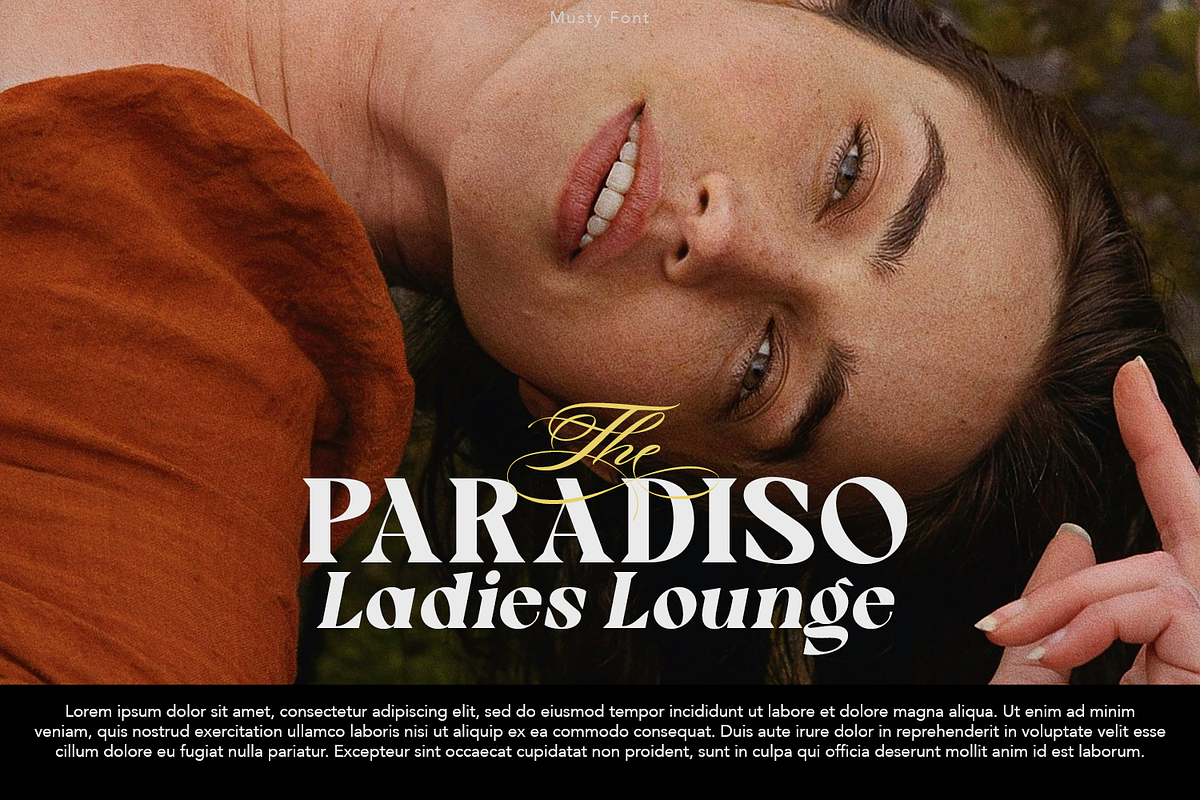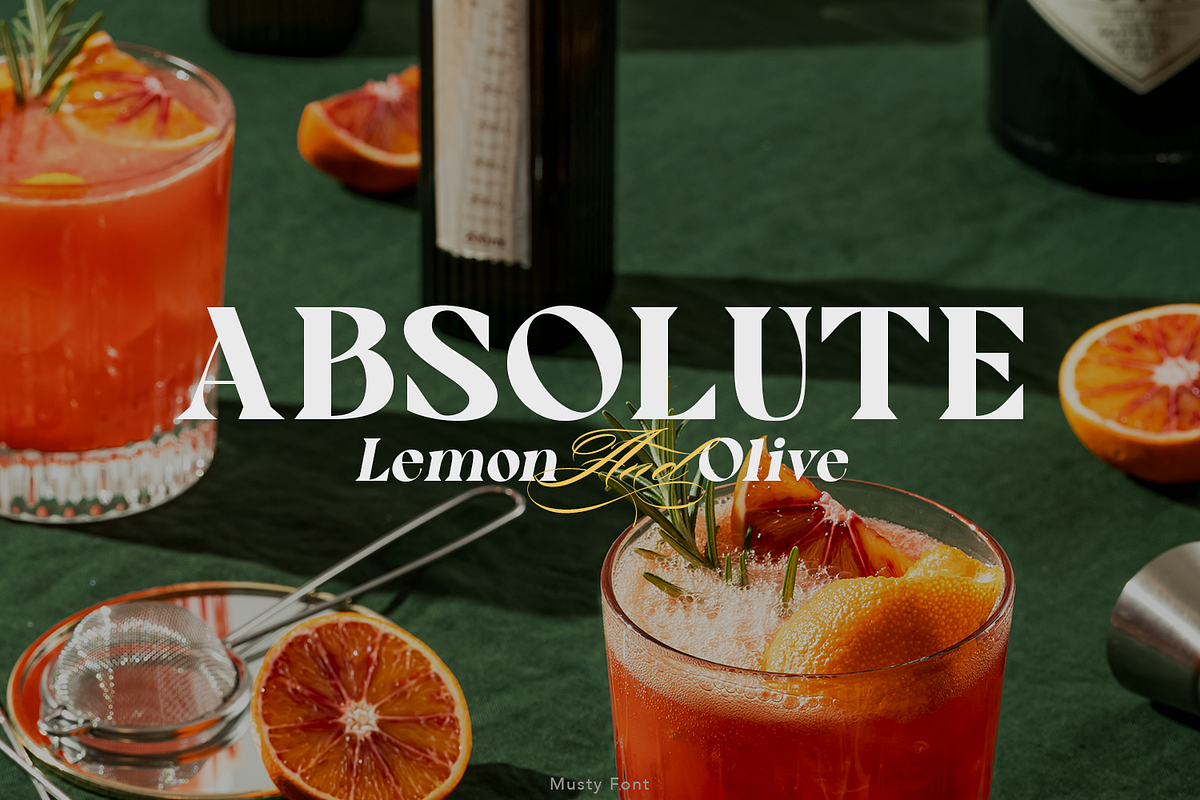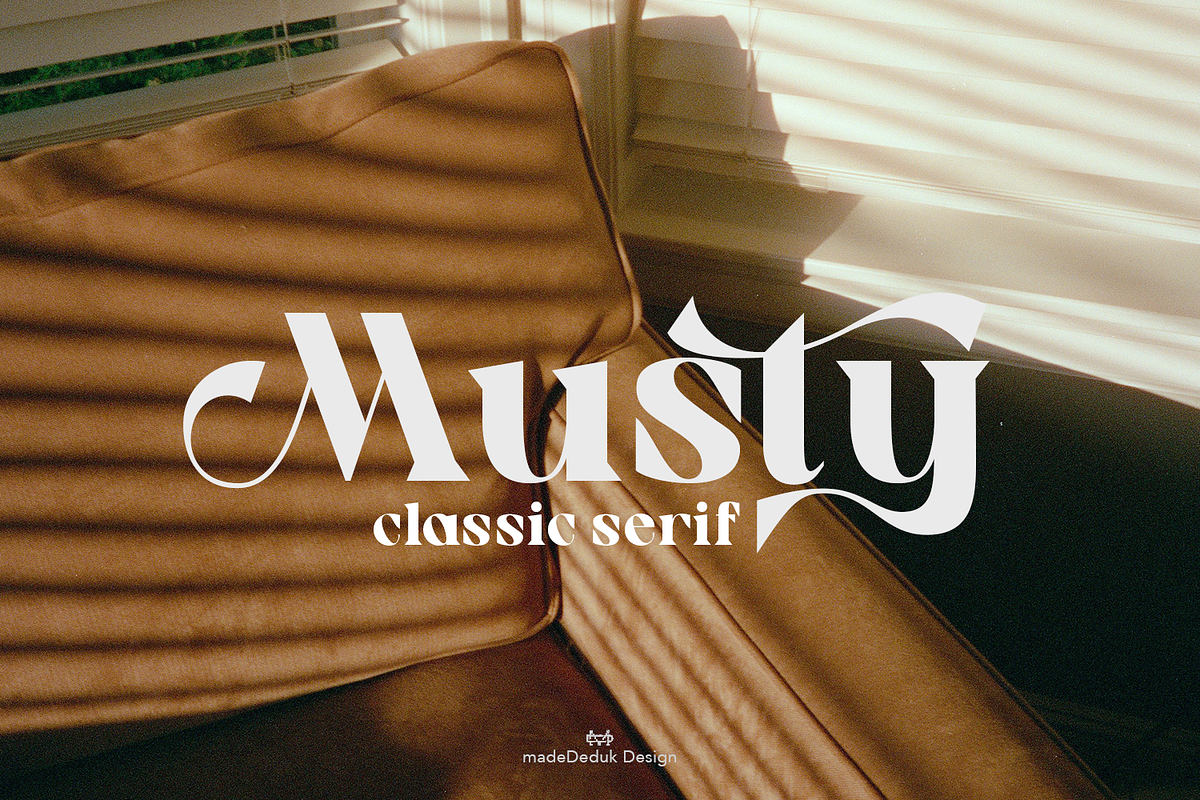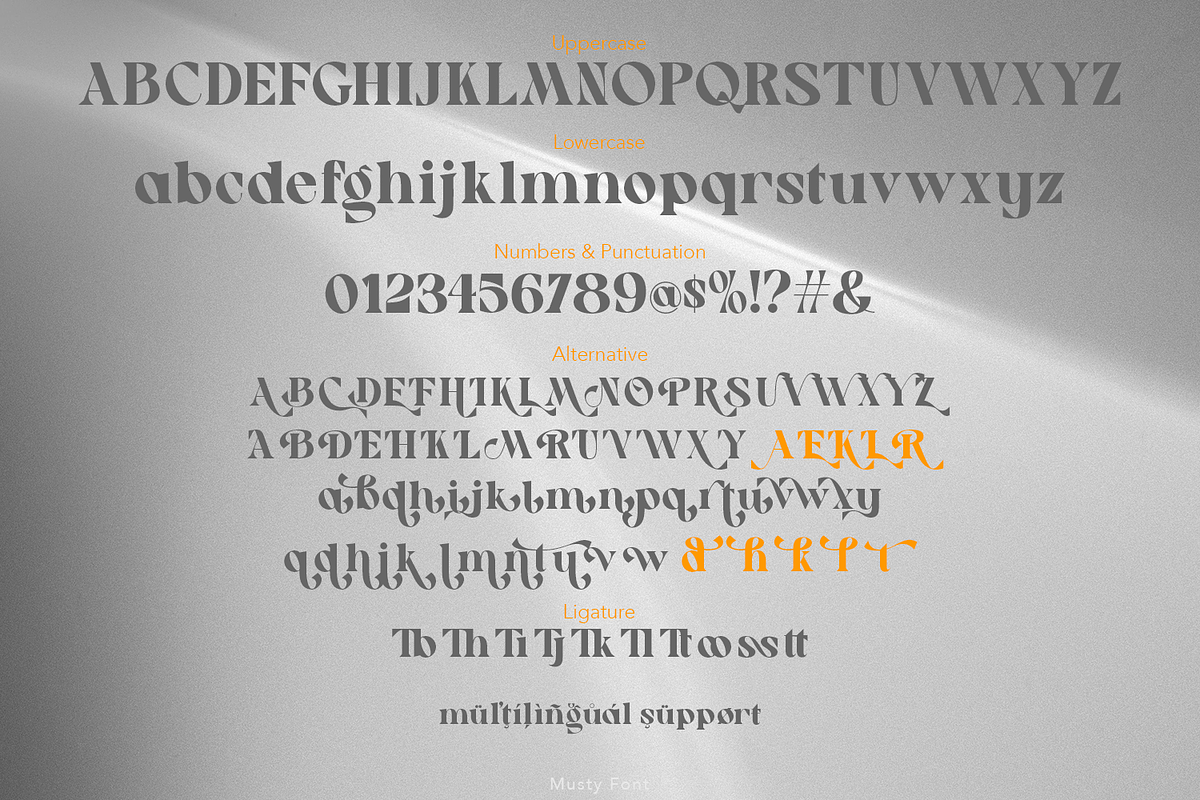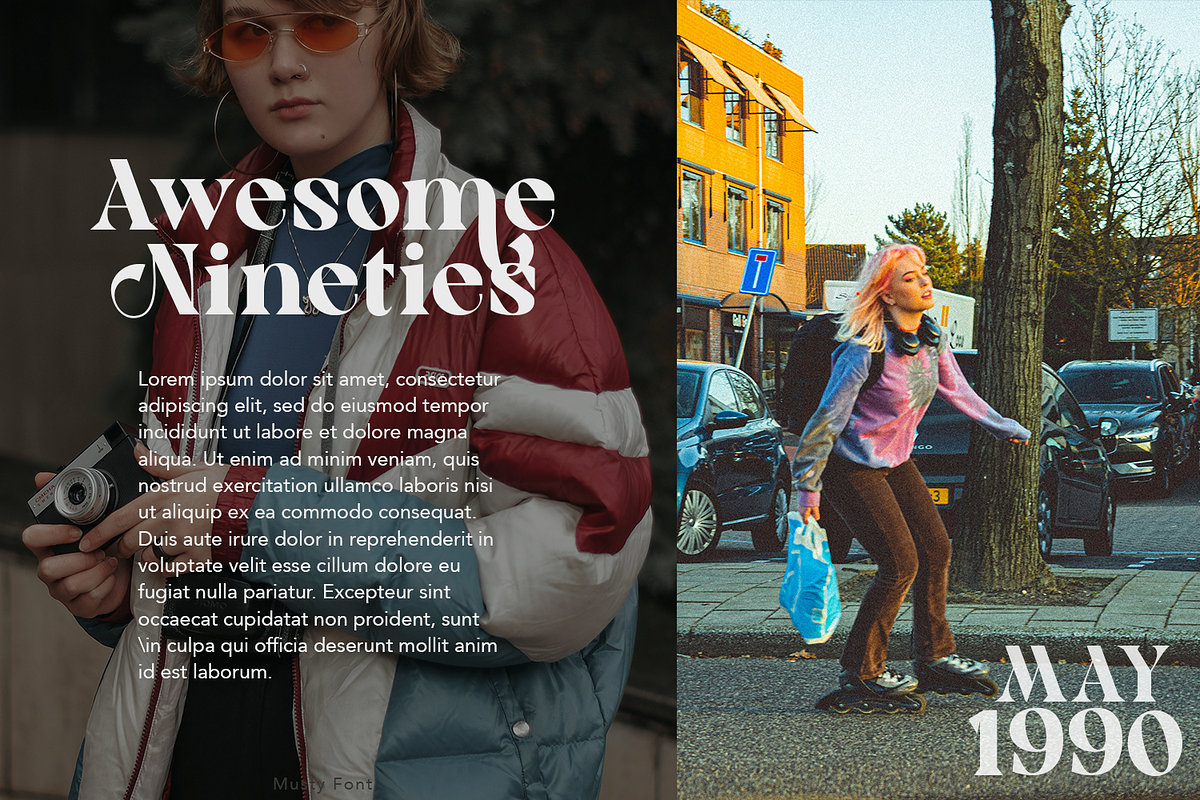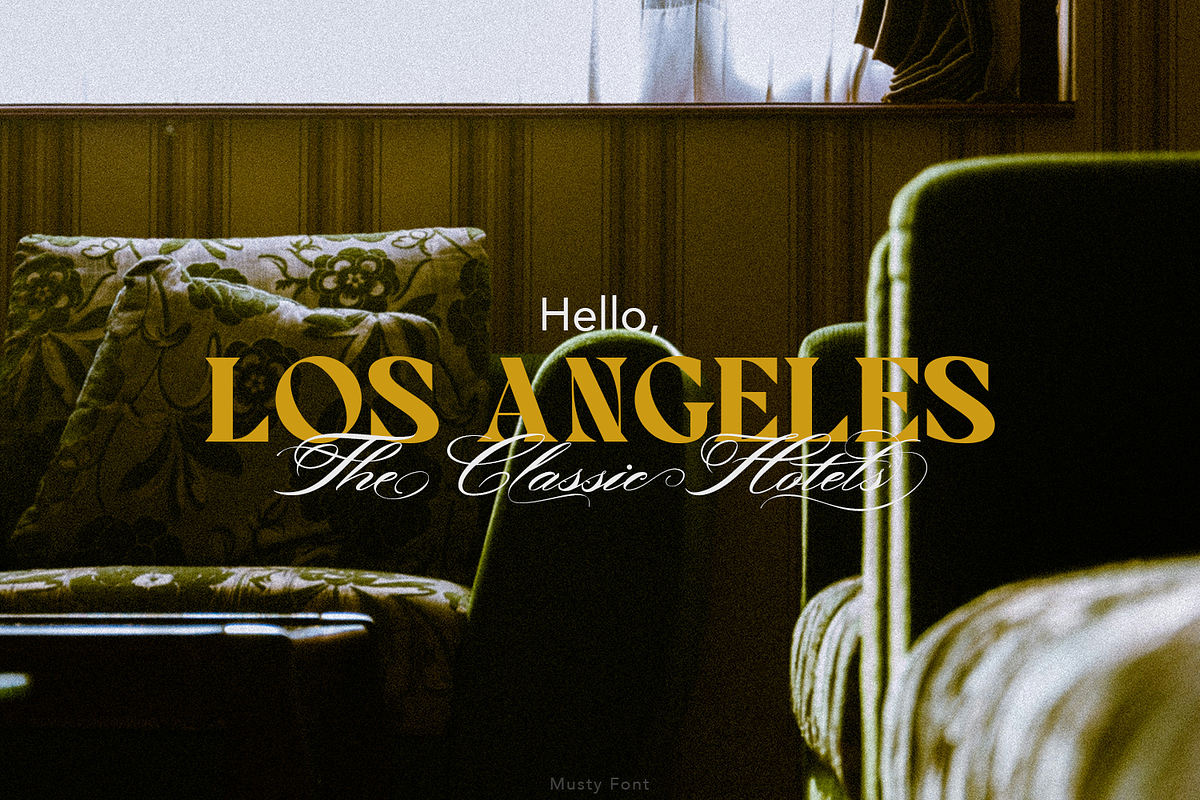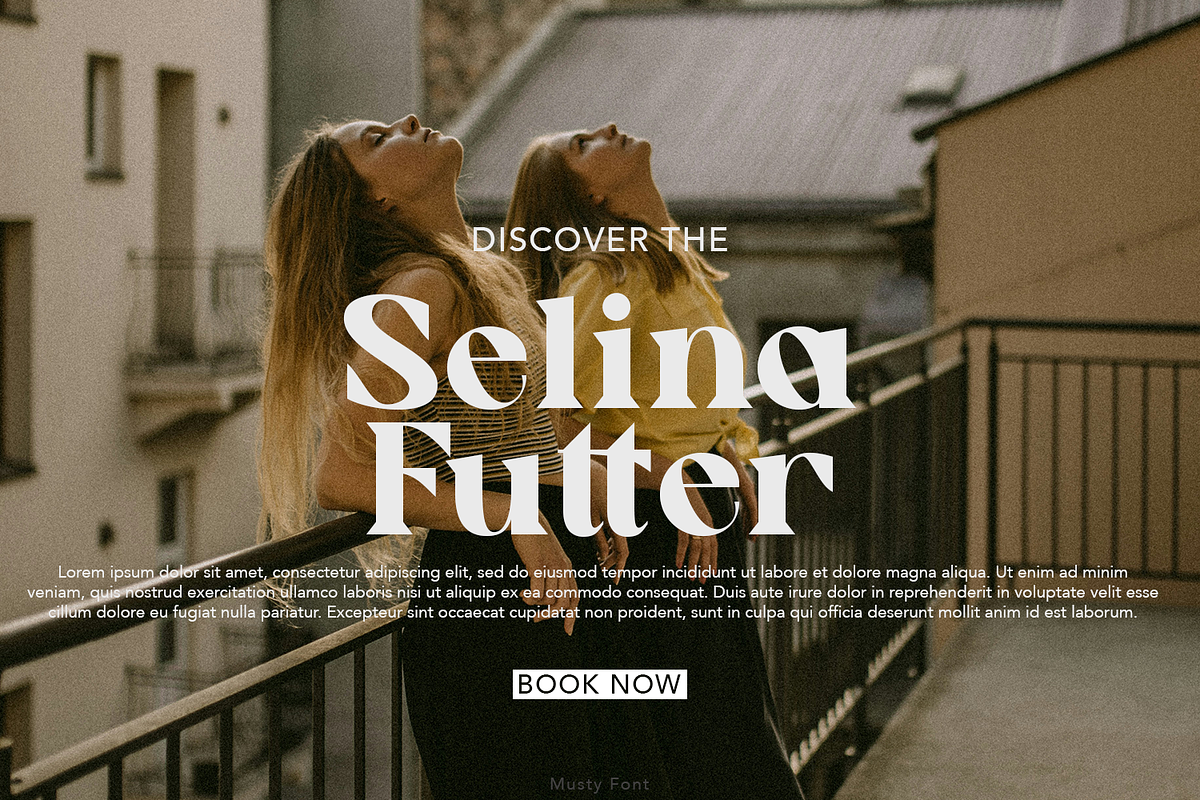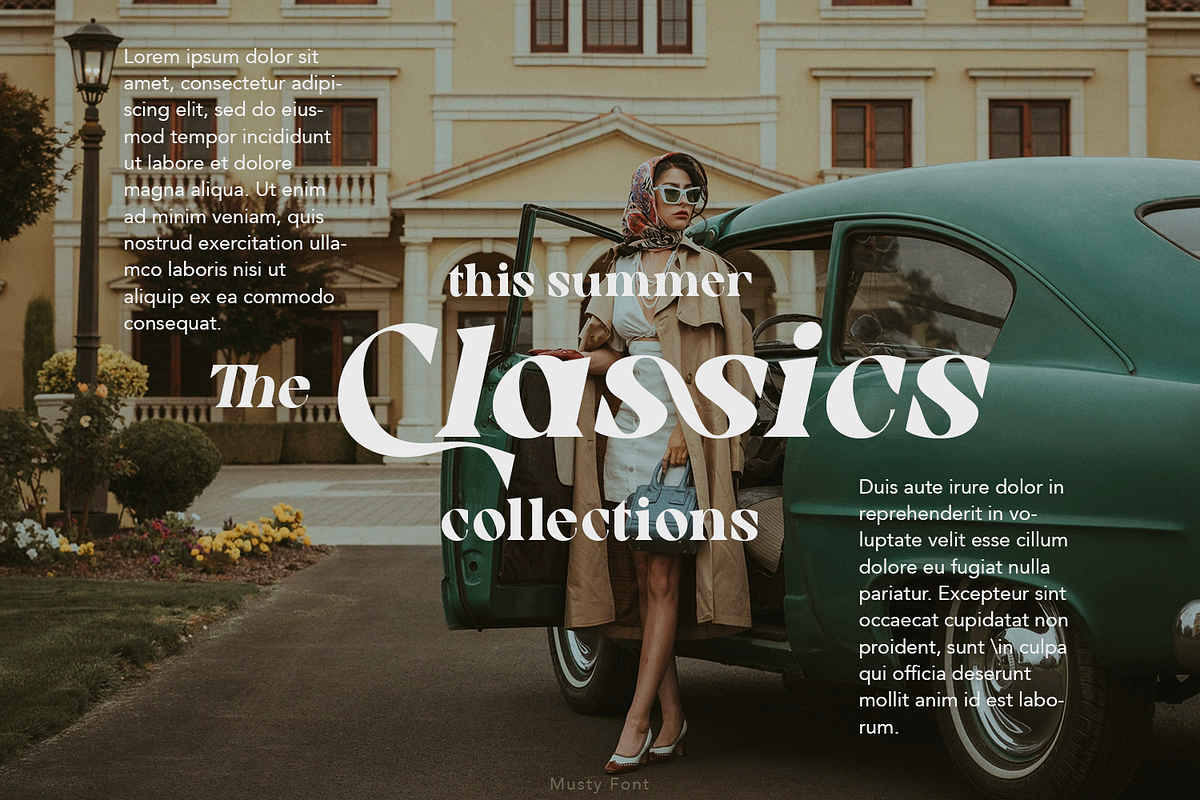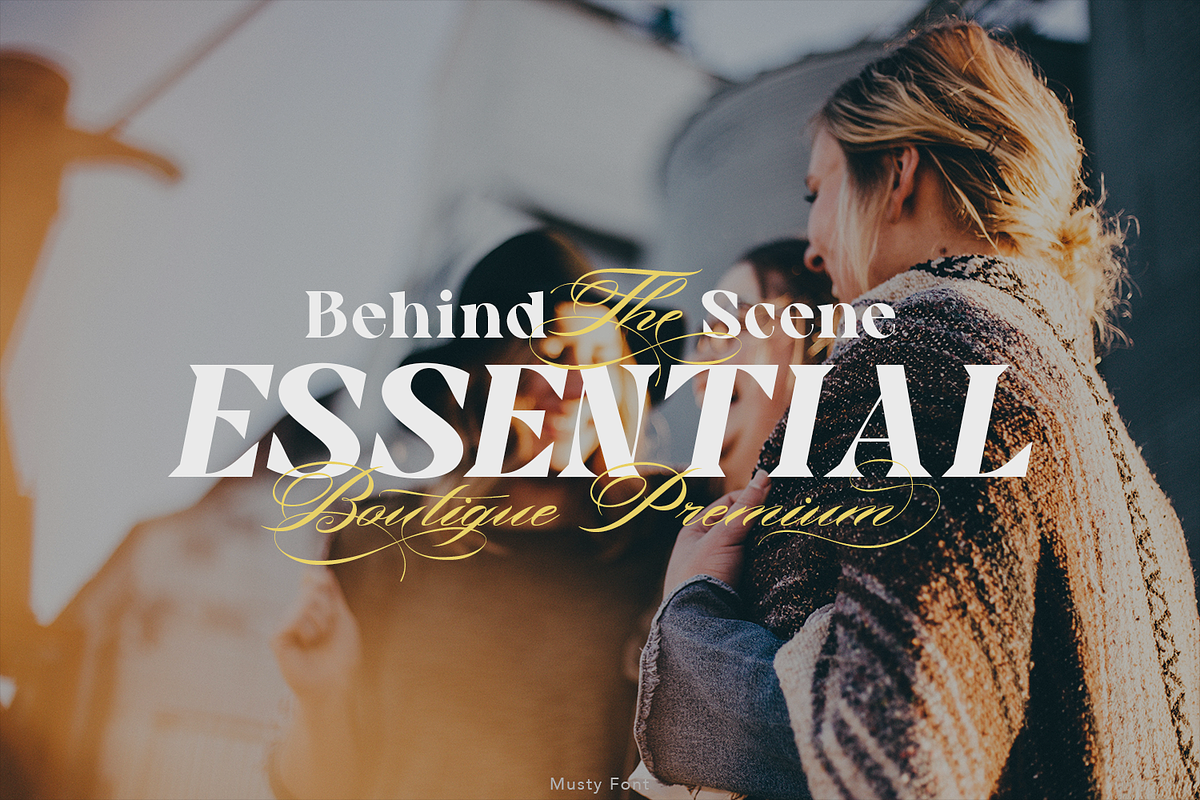
Musty Classic Font
Musty is a classic serif, come with single weight, legible and expressive shapes. A lot of stylish alternates characters and ligature will makes this font suitable for your any project design.
- International Glyphs